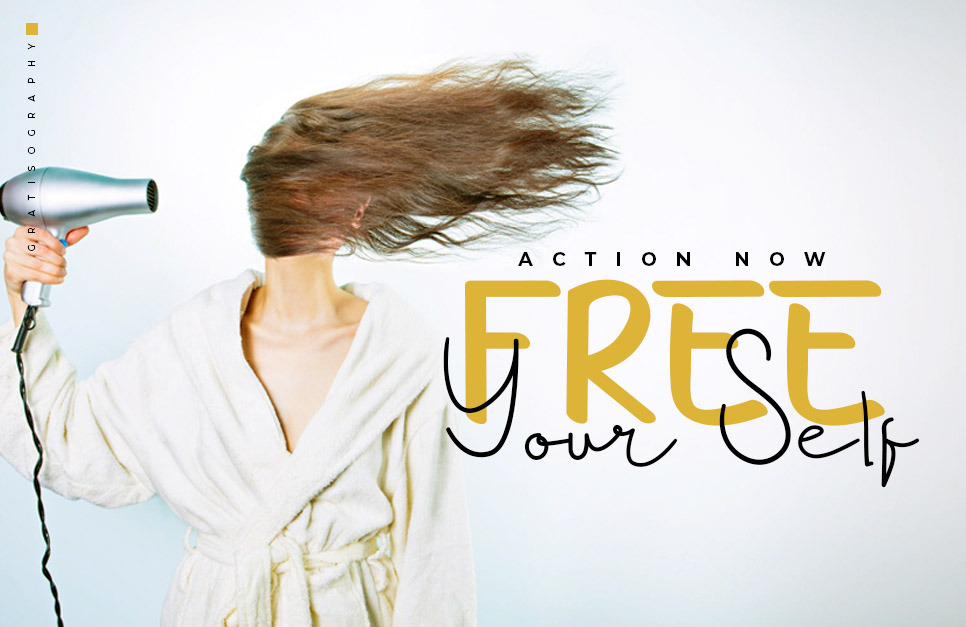
Glamor Signature Font
This is Glamor Signature - New signature font with subtle shapes and upright calligraphy styles.
Very useful for making logos, signatures or digital signatures for your business cards or personal brands. It's also suitable for cosmetic posters, fashion magazines, book covers, movie titles or simple quote designs. with Stylistic Alternates, Swash